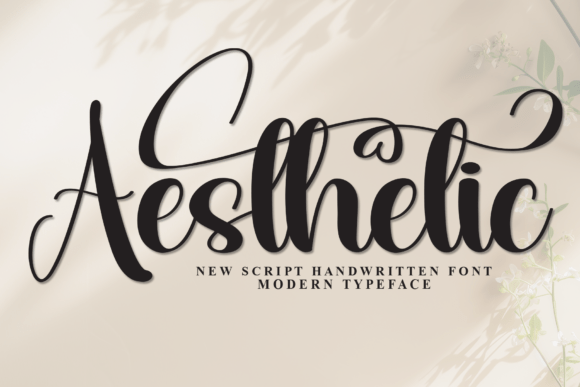
The Aesthetic Font: Elevate Your Designs with Luxurious Flair
I’ll never forget the time I was working on a branding project for a high-end boutique, and I was struggling to find the perfect font to capture the luxurious feel they wanted. The client was adamant that the font had to be elegant, sophisticated, and Instagram-worthy. After hours of scouring font libraries and testing out different options, I stumbled upon Aesthetic – a bold, curvaceous script font that burst with personality. ✨
An Honest Review of Aesthetic
- ✨ Smooth swashes and stylish loops that create a luxurious feel
- ✅ Perfect for logos, social media graphics, boutique branding, and eye-catching invitations
- 💫 Highly legible, even at smaller font sizes
- 🎨 Versatile and works well with a variety of design styles
While Aesthetic is an amazing font, there are a few things to keep in mind: 🤔
- ⚠️ Some of the swashes and flourishes can be a bit finicky to work with, especially for beginners
- ⚠️ May not be the best choice for body text or long-form content, as it’s quite ornate
The Story Behind Aesthetic
Aesthetic was designed by a team of creatives who wanted to create a font that would capture the essence of luxury and sophistication. Inspired by classic script fonts and modern design trends, Aesthetic was born. The designers wanted to create a font that would be both elegant and Instagram-worthy, perfect for boutique branding, social media graphics, and eye-catching invitations.
Q: What type of designs is Aesthetic best suited for?
A: Aesthetic is perfect for logos, social media graphics, boutique branding, and eye-catching invitations.
Q: Can I use Aesthetic for body text or long-form content?
A: While Aesthetic is a beautiful font, it’s not the best choice for body text or long-form content. It’s better suited for headlines, titles, and short-form text.
Q: Does Aesthetic support OpenType features?
A: Yes, Aesthetic supports OpenType features, including stylistic alternates, swashes, and glyphs.